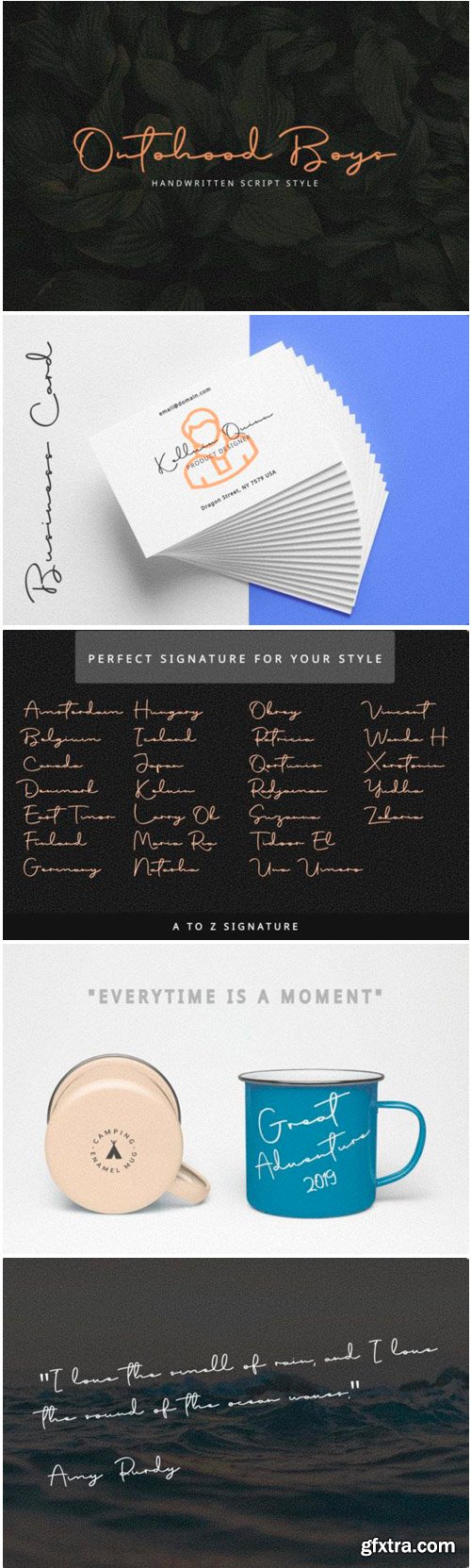
Ontohood Boys Font
Ontohood Boys is a beautiful font with a continuous handwritten script style. This font is perfect for both professional and branding, and will add an authentic spin to any design idea!